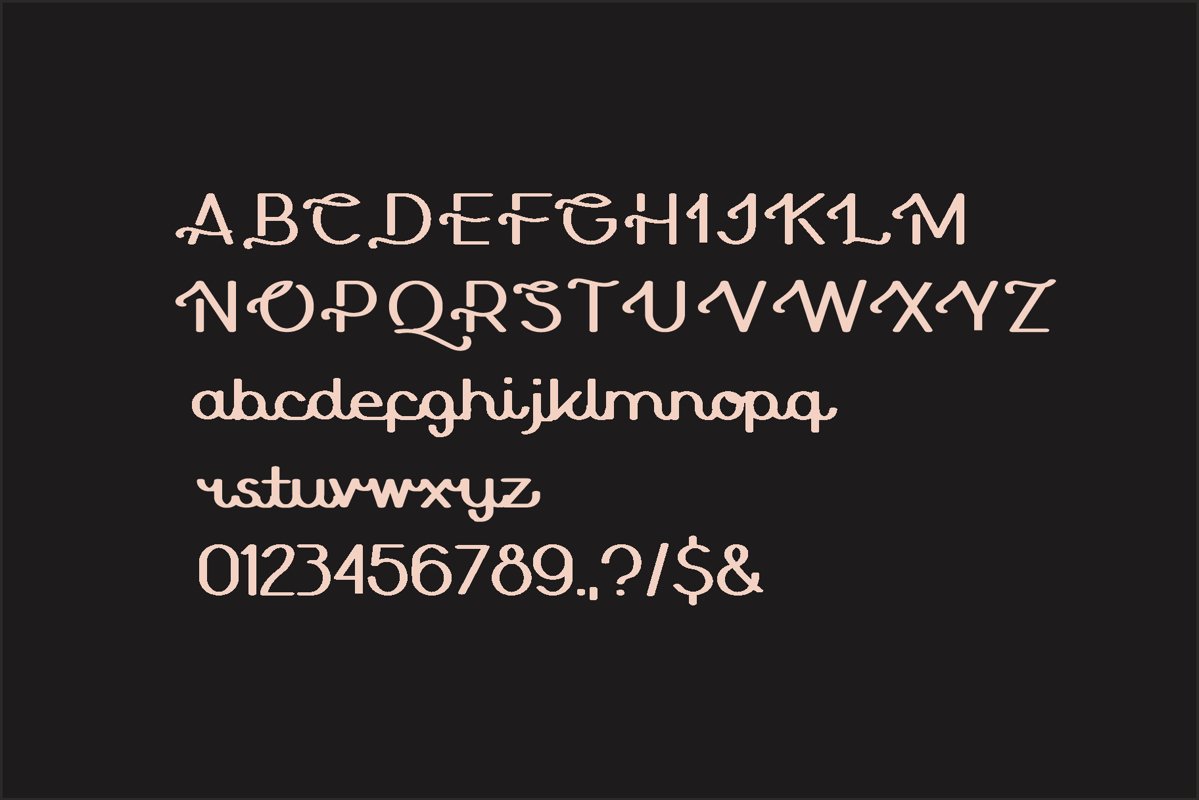
unch
Unch
minimalis rounded typeface  it’s perfect for namecard, poster, logo, magazine, cover, banner, tshirt and headers, logo and other any business related.